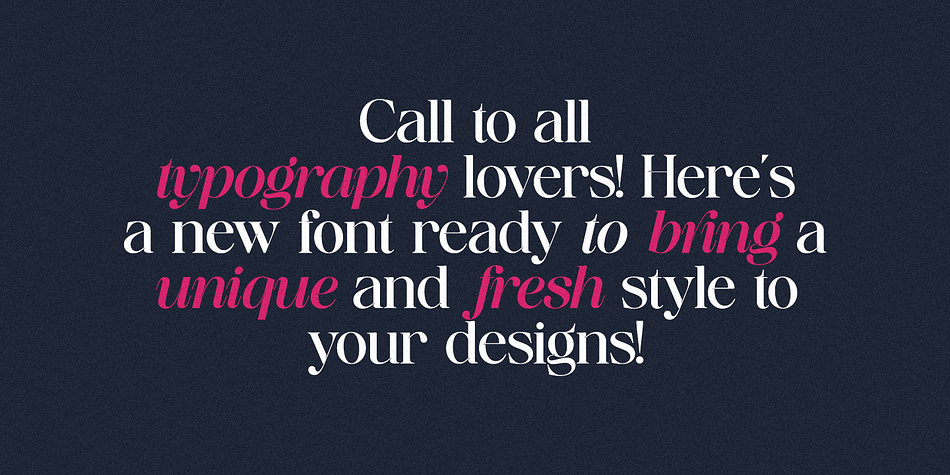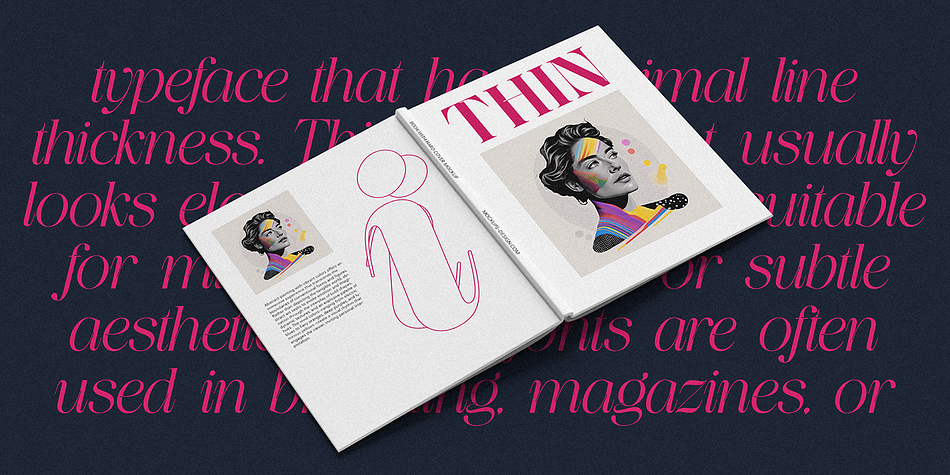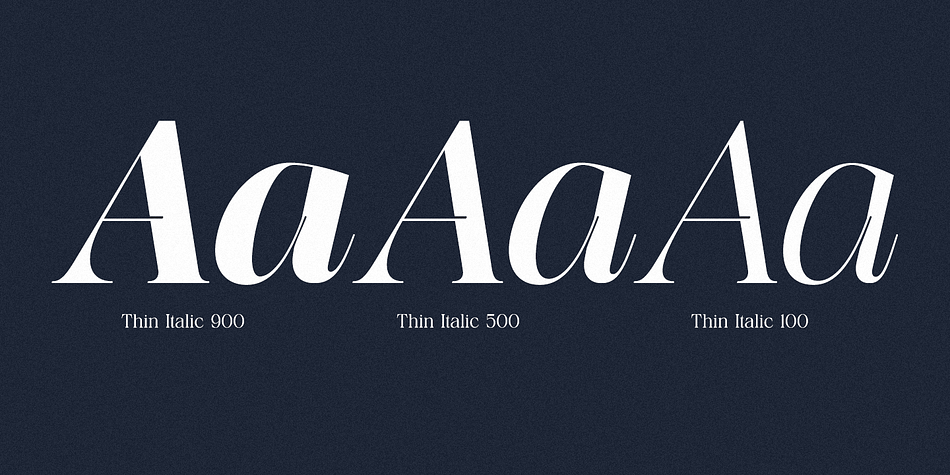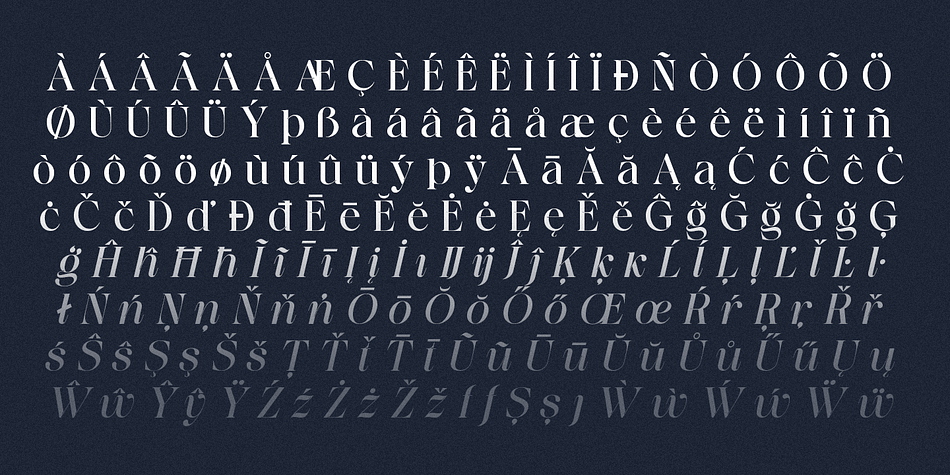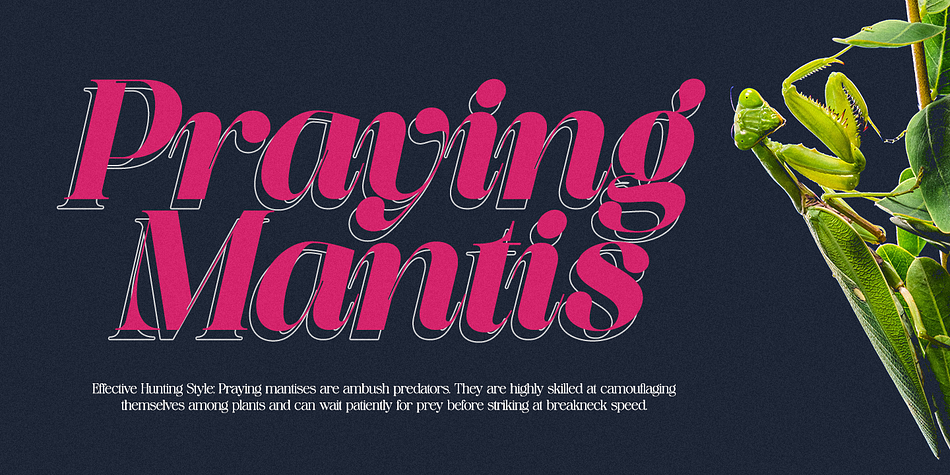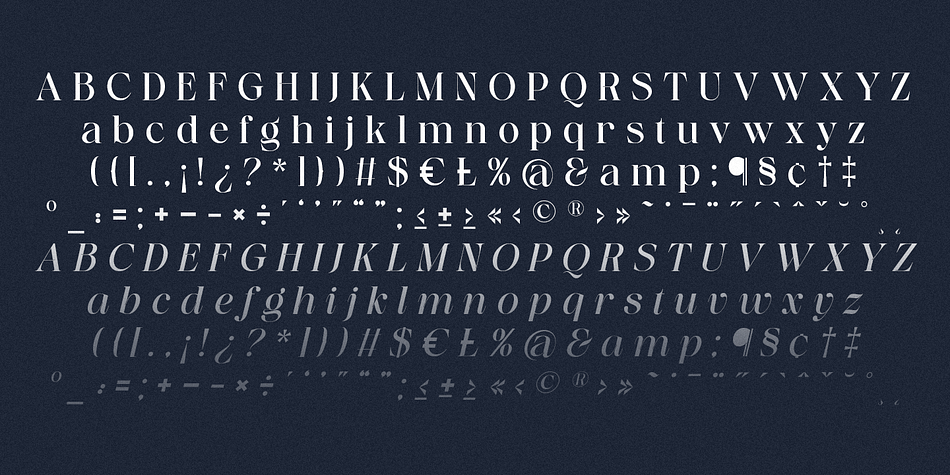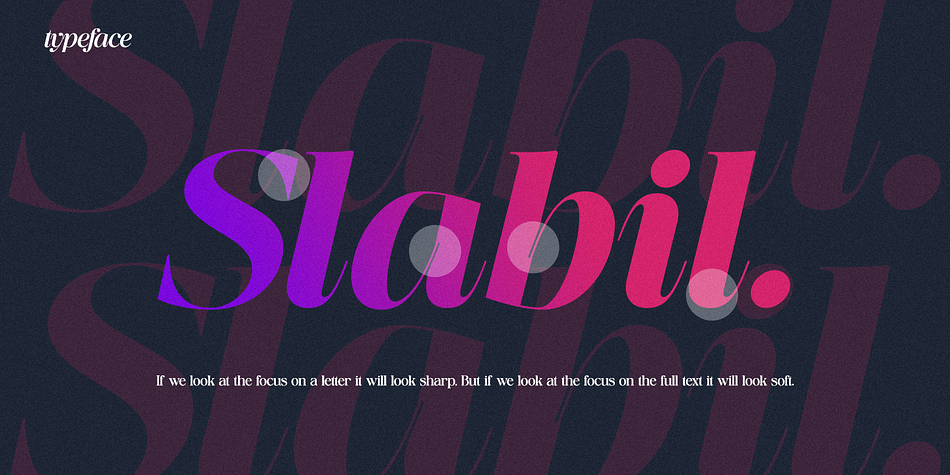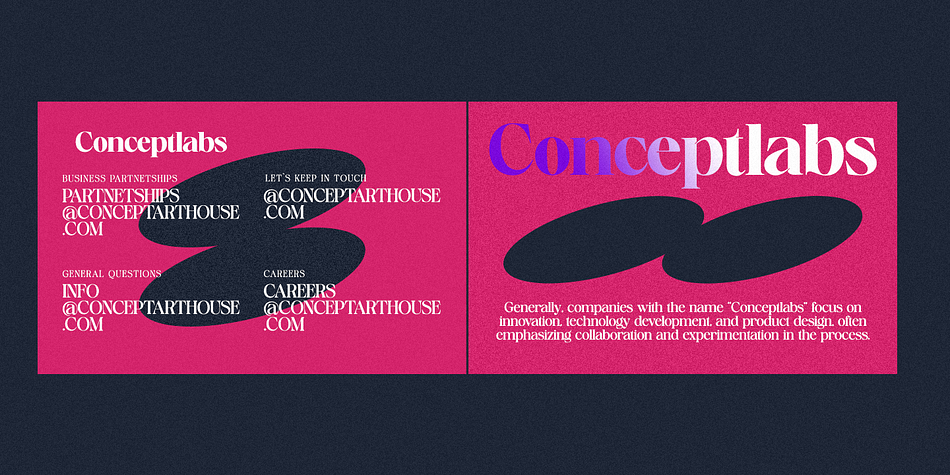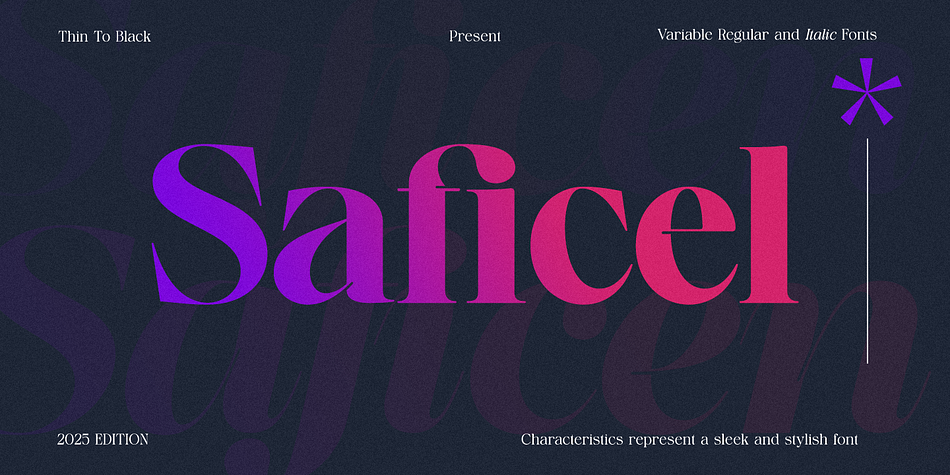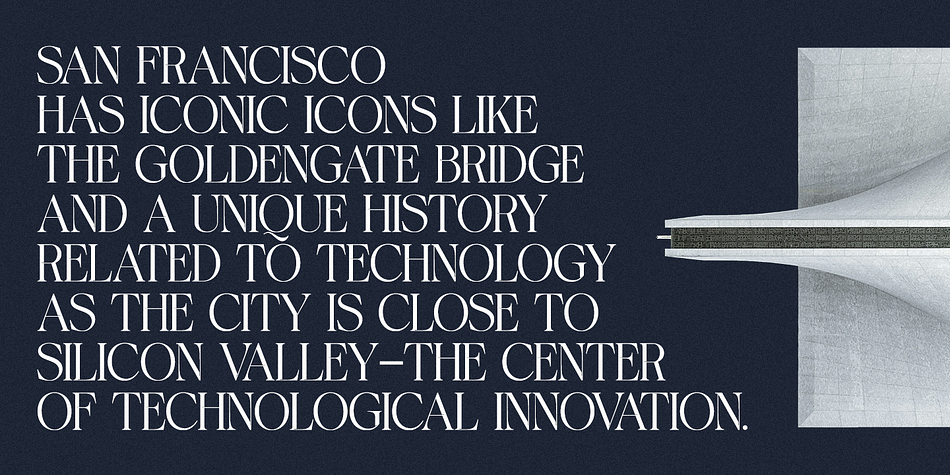
Saficel
Saficel is a serif font family. This typeface has nineteen styles and was published by Pista Mova.
The font “Saficel” looks like an elegant and modern choice. It comes in a thin to bold variant (“Thin to Black”) with variable Regular and Italic forms, showing its flexibility in use. Its sleek and stylish design creates a contemporary feel, perfect for designs that require a sophisticated and professional look. The purple to pink gradient on the word “Saficel” provides an interesting artistic touch, adding a unique visual aesthetic to the font’s appearance.